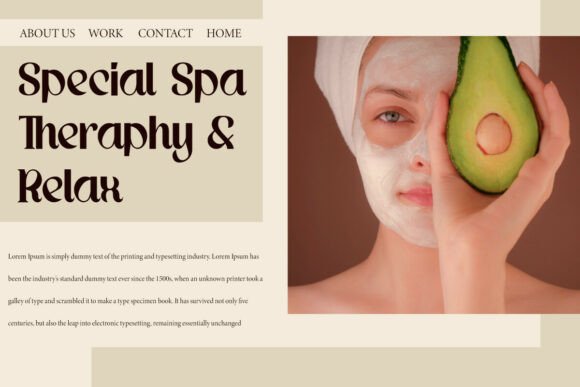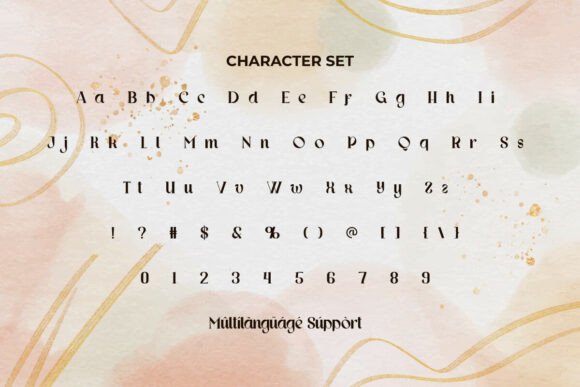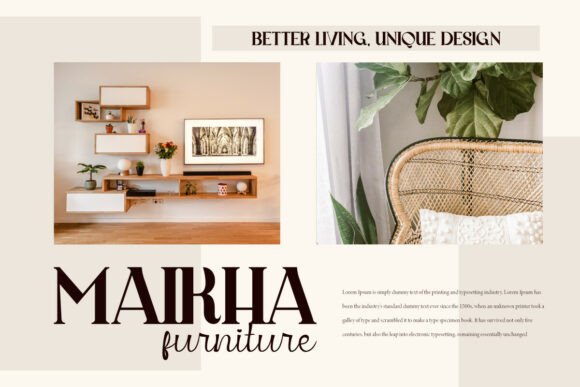
Introduction to Newmerican Font Font
Fonts play a crucial role in design, and the Newmerican Font font is a typeface that brings both character and versatility to any project. Whether you’re working on a branding project, a website, or a print design, the Newmerican Font font offers a unique style that can elevate your work.
Newmerican Font is a beautiful, classy serif display font with a stunning look.
This font has a beautiful and elegant look at the same time, with a curve It will be perfect for any designs, such as brand image, cover, custom design, invitation, label, marketing material, poster, product packaging, quote, signage, stationery, web, and many more.
The Newmerican Font font is more than just a typeface – it’s a design tool that helps you communicate your message with style and clarity. Its unique character set and versatile design make it suitable for a wide range of applications, from elegant invitations to bold headlines.
With its carefully crafted letterforms and balanced proportions, the Newmerican Font font ensures readability and visual appeal across all mediums.
The Newmerican Font font stands out with its unique design, exceptional readability, and versatility across various design applications.